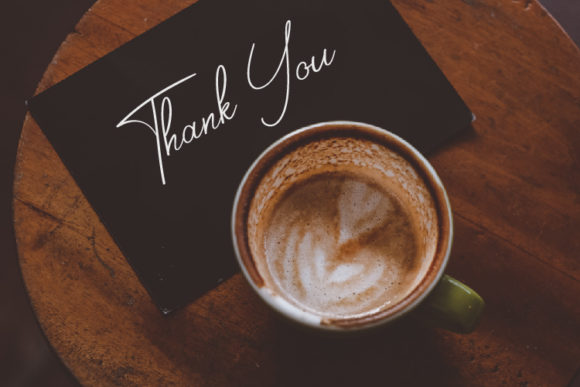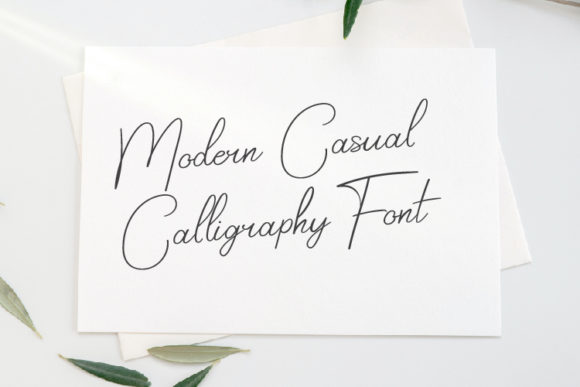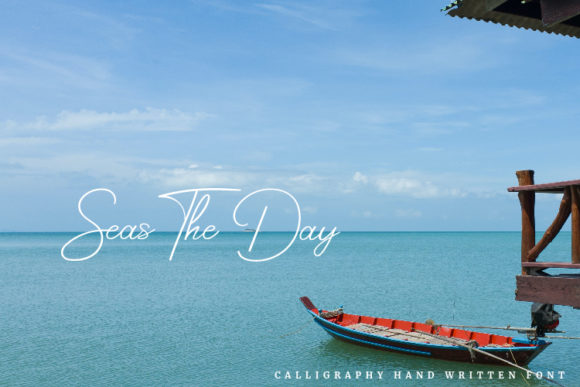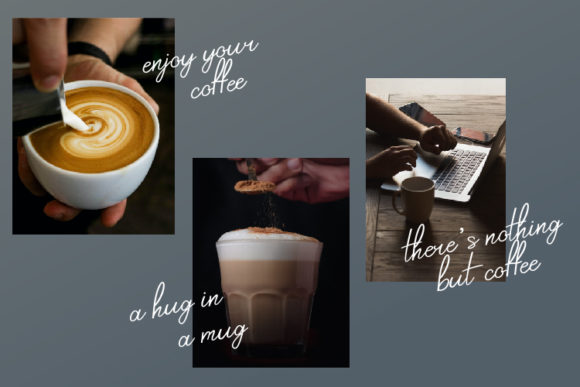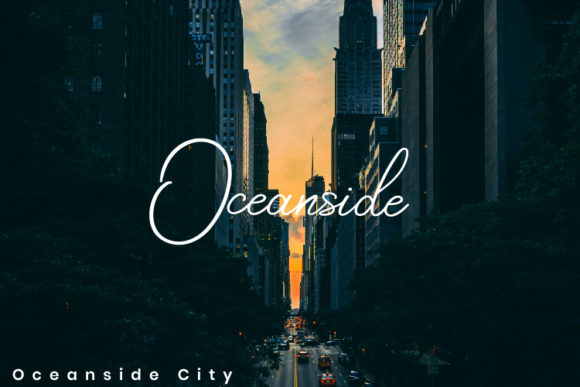
About Strawberry Cupcakes Font
Strawberry Cupcakes is a playful and modern script font. It looks beautiful on a variety of designs requiring a personalized style, such as wedding invitations, thank you cards, weddings, greeting cards, logos and so on.